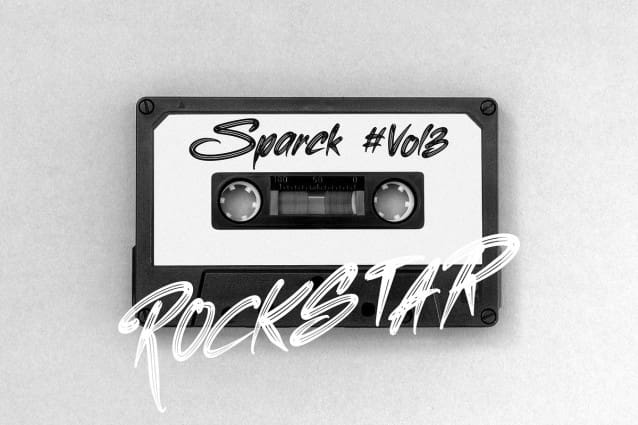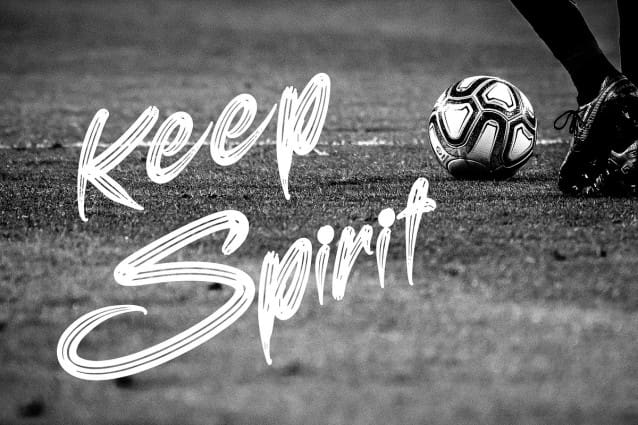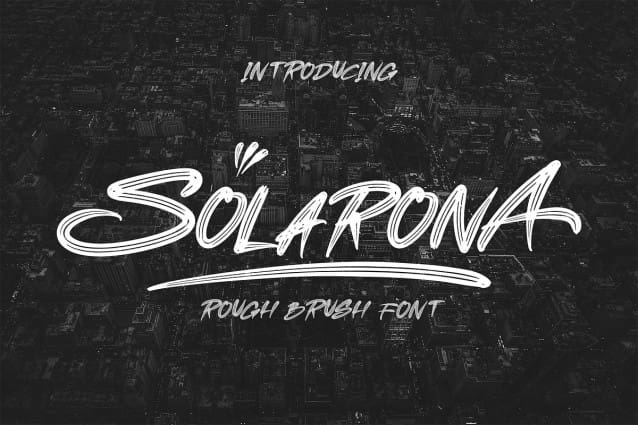
Solarona Brush Font
Solarona Brush Font is a beautiful display font with handbrush style. This brush font is made with brush strokes that look natural and beautiful. Can be applied to support the graphic appearance of the product to be more attractive and unique. This font is suitable for making previews and covers, shirt designs and other graphic needs.